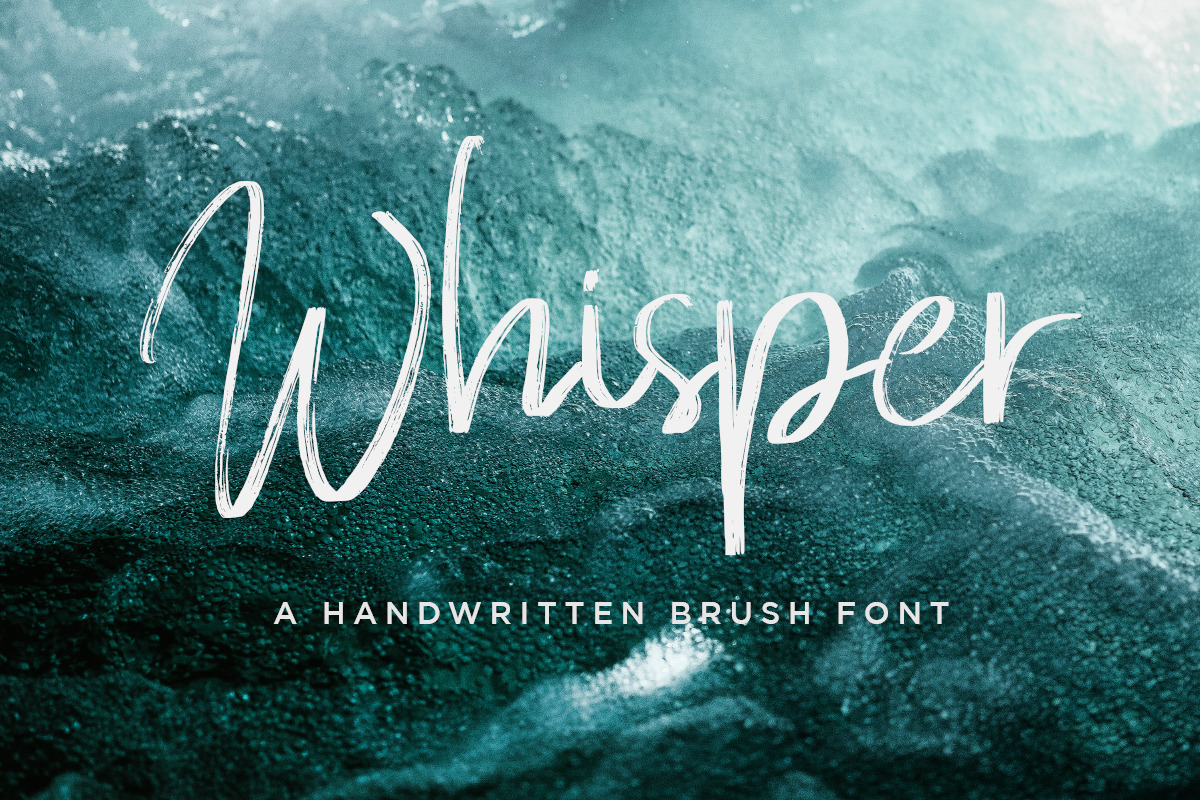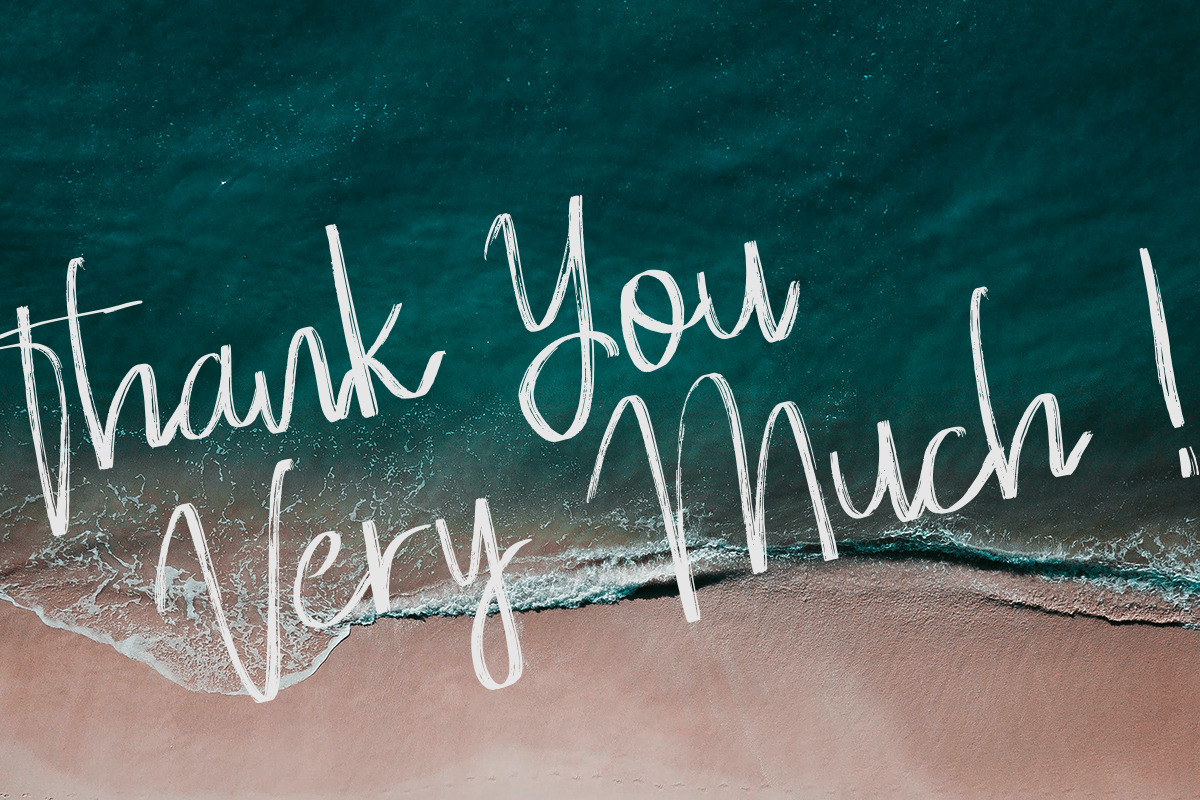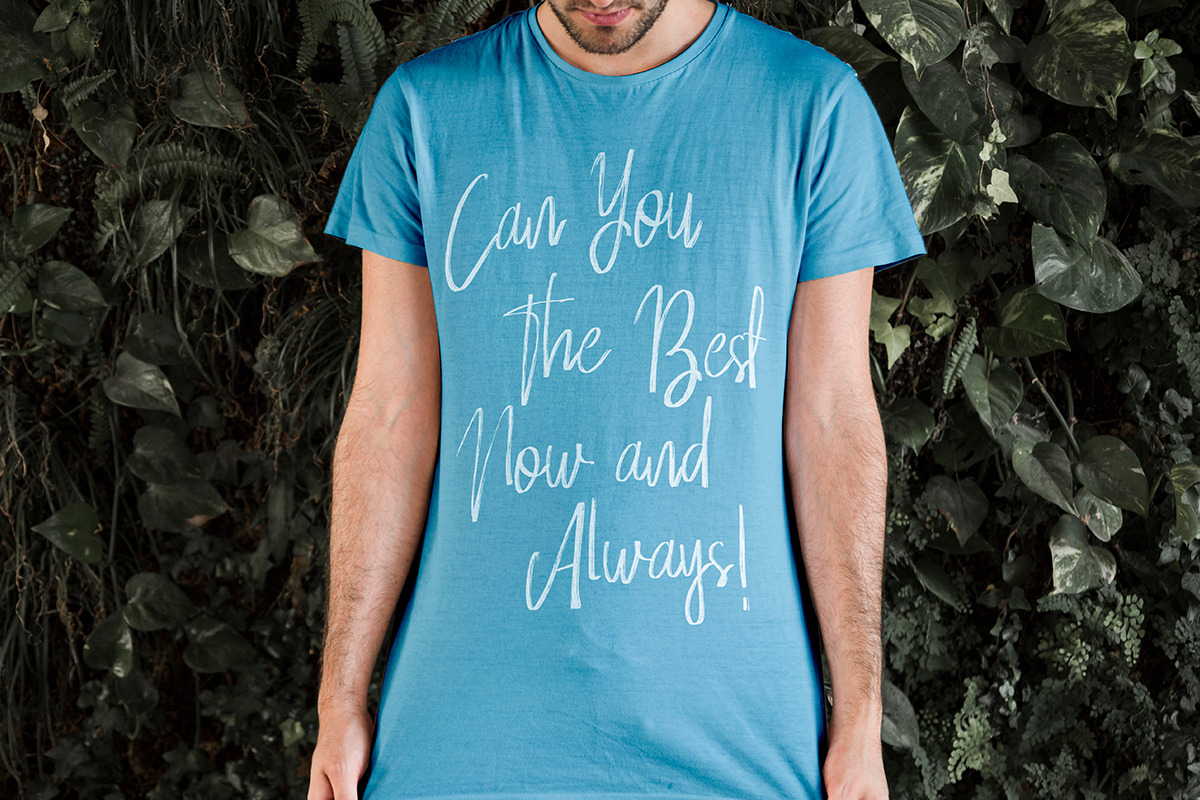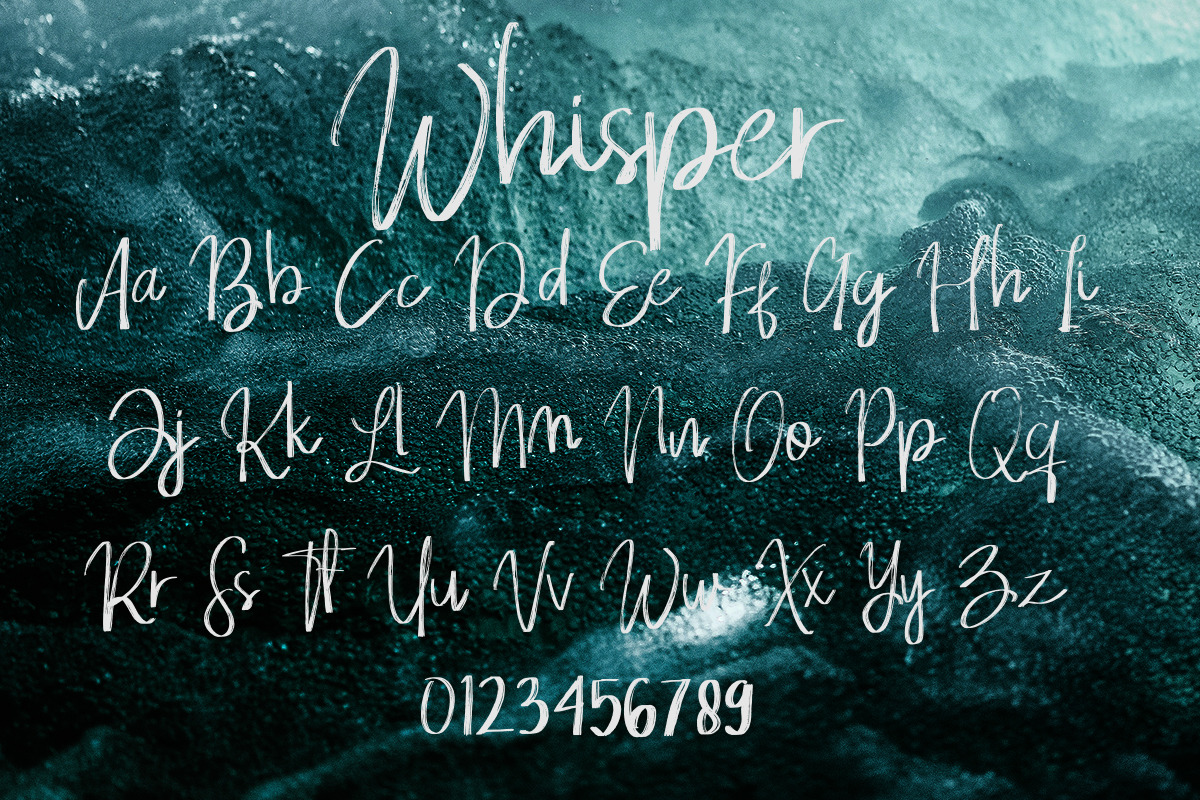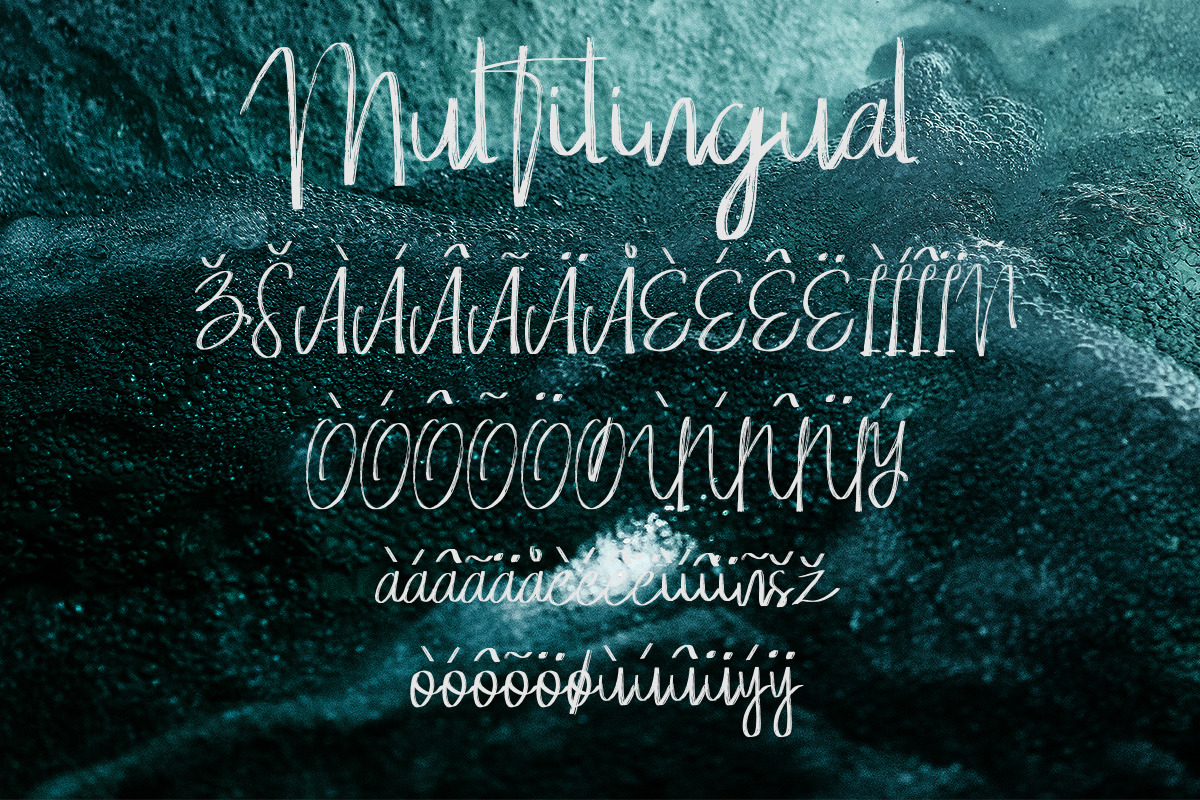
Whisper Brushes Font
Whisper Brushes Script is a unique handwritten brush font. Its unique flow and style makes it perfect to use for prints, logos, signatures, quotes, badges, labels, packaging design, blog headlines or simply use it to add a fancy text on a photo.
Whisper Brushes Script comes with upper and lowercase Basic Characters, Numbers, Multilingual and Punctuation. Diacritics are also available for Western and Central European Languages.